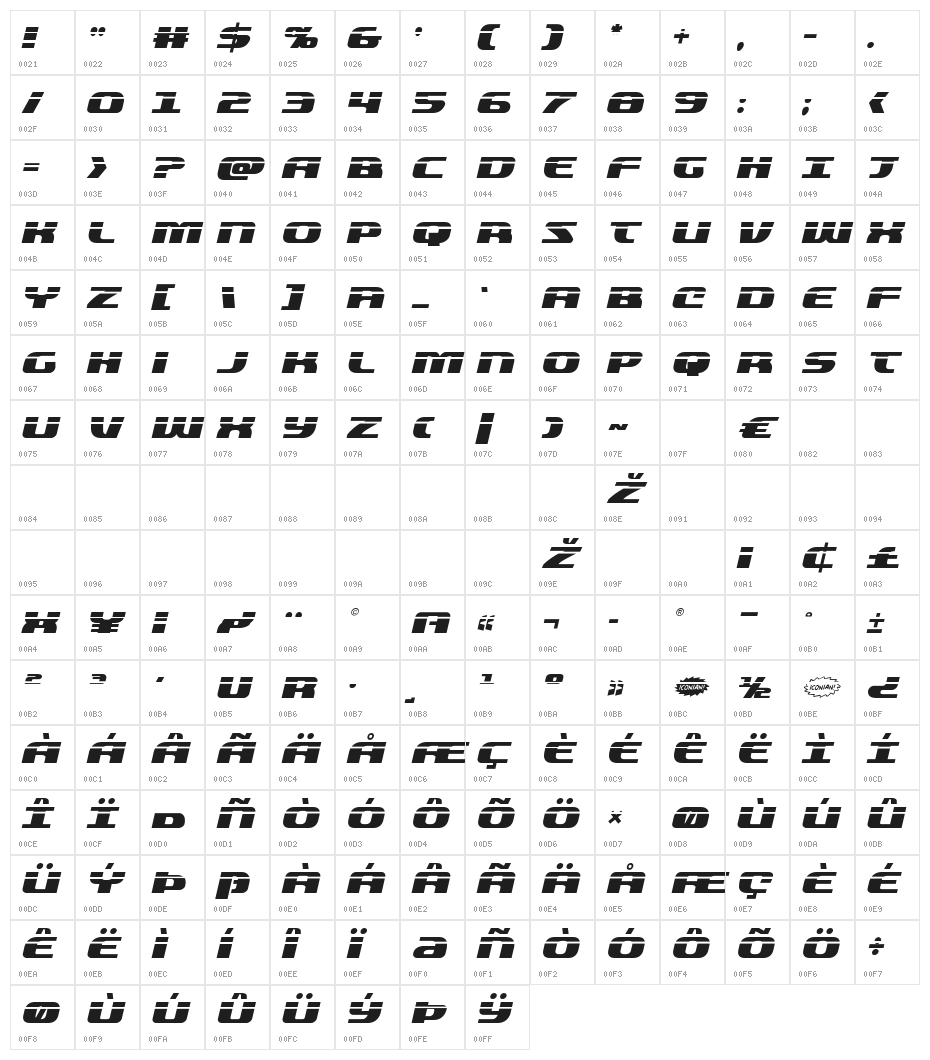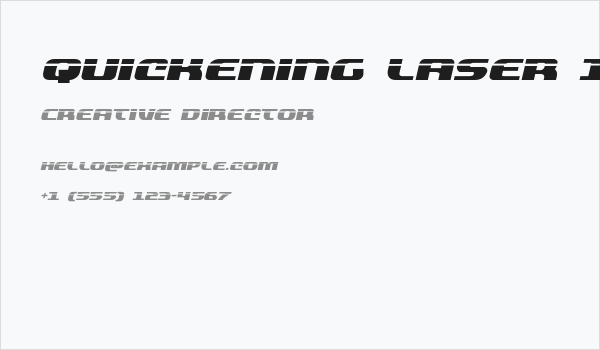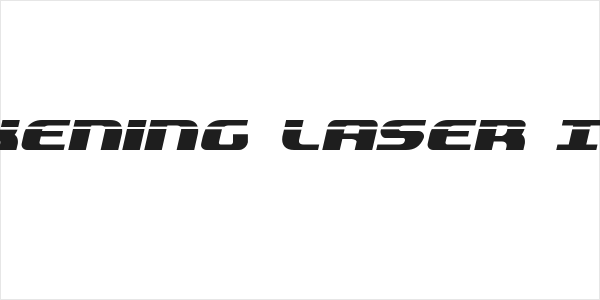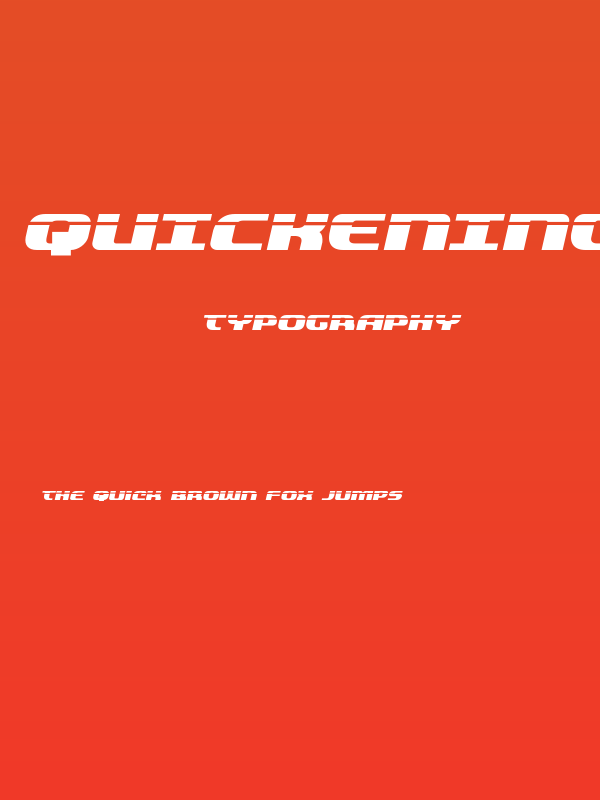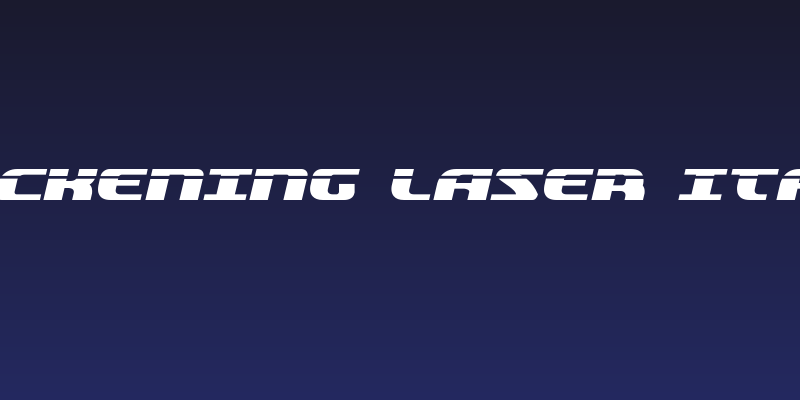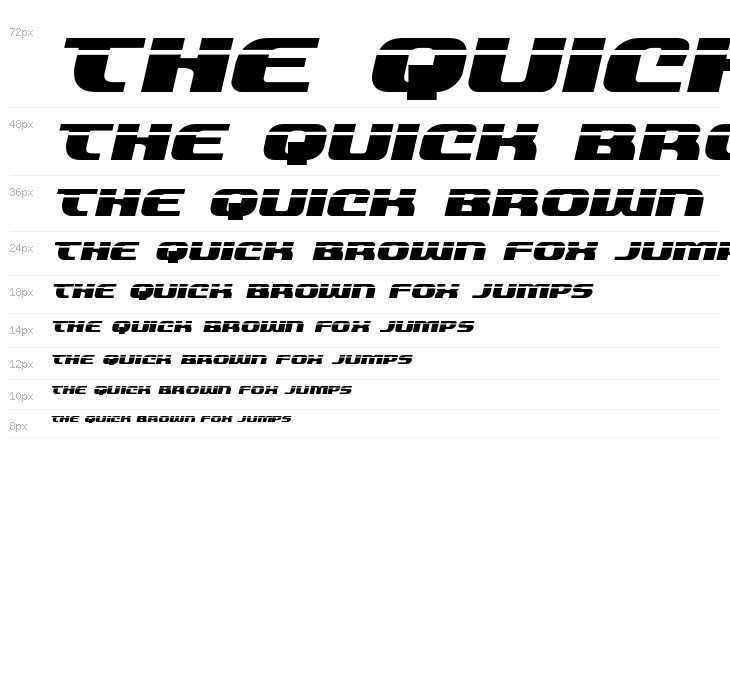
Quickening Laser Italic Font
Quickening Laser Italic Description
This font features a futuristic and dynamic design with a strong italic slant, giving it a sense of motion and speed. The characters are bold and have a distinct geometric style, with sharp angles and clean lines. The uppercase and lowercase letters maintain a consistent style, while the numbers and special characters integrate seamlessly with the overall design. The font's unique appearance makes it stand out, ideal for projects that require a modern and energetic look.
| Proposed Projects | Ideal for sci-fi themed designs, video game titles, technology branding, and sports event posters. |